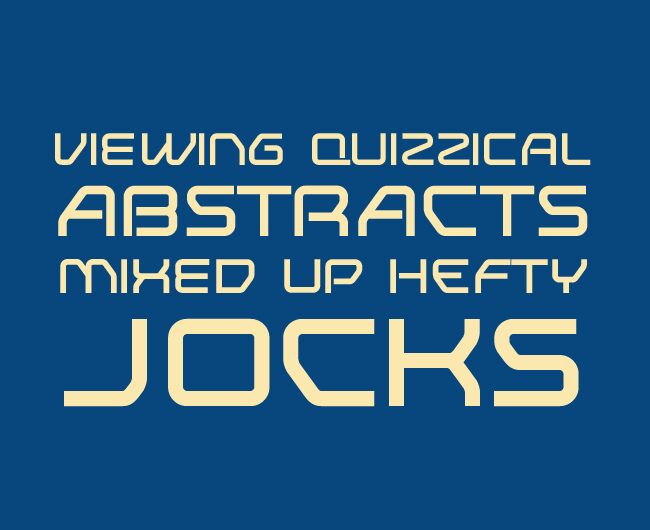
Research Remix, designed by Ivan Philipov, is a free futuristic display sans built from broad, rounded geometric strokes. Its squared curves, open joins, and low stroke contrast give the capitals the look of custom lettering for an electronic control panel.
As an electronic title treatment, it suits game interfaces, technology branding, and science fiction posters. The broad forms also fit music packaging. Its most natural audience is designers working with gaming, electronic music, or retro-future themes, where the letterforms can become part of the interface imagery.